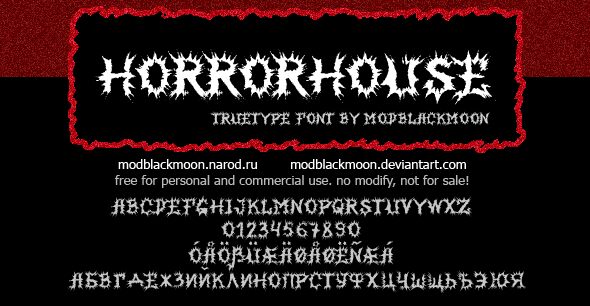
MB-HorrorHouse
MB Horror House by Mod Blackmoon is a free distorted display font with the raw attack of graffiti lettering, its broad capitals hacked into ragged silhouettes, surrounded by sharp splinters, and pierced by tight, uneven interior gaps. The uneven edges make every letter look shredded, scratched, or freshly sprayed.
Blood-spatter graphics, distressed textures, and horror illustration can absorb these letterforms as part of the image, making the font a convincing fit for film posters, game titles, and metal merchandise. Its aggressive texture also suits haunted attractions and Halloween event graphics aimed at audiences who prefer grime and menace over polished theatrical horror.
Includes English, European, and Cyrillic letters, as well as numbers. It may be scaled to extra-large sizes without loss of quality.